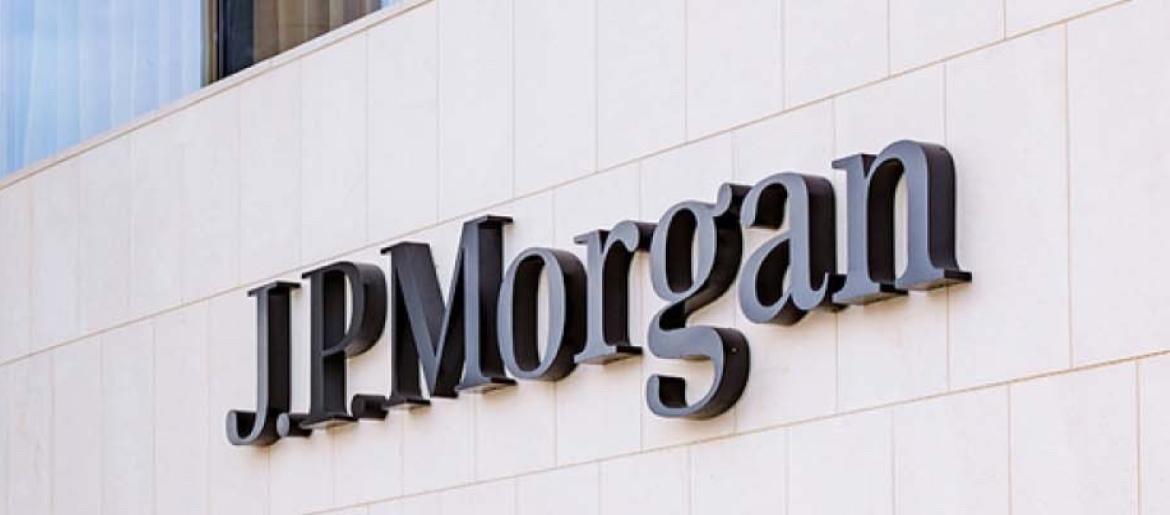
J.P. Morgan Font plays an important role in shaping the brand’s identity as one of the world’s leading financial institutions. The J.P. Morgan logo font conveys stability, tradition, and professionalism, qualities that align with the company’s long history in banking and investment services.
J.P. Morgan Font
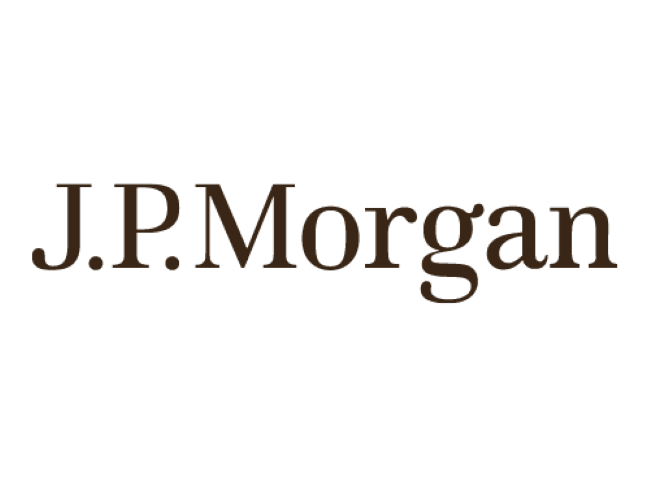
The J.P. Morgan logo font is based on a customized version of Garamond, a serif typeface known for its elegance and readability. Its refined letterforms and classic style give the logo a timeless appearance, ensuring that the brand communicates trust and authority across all platforms.